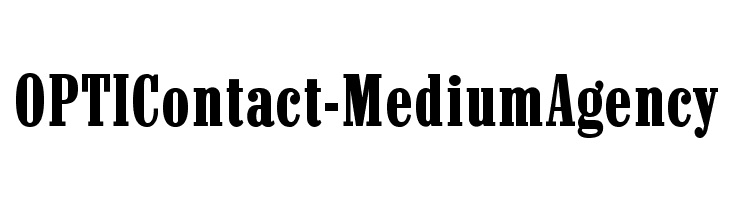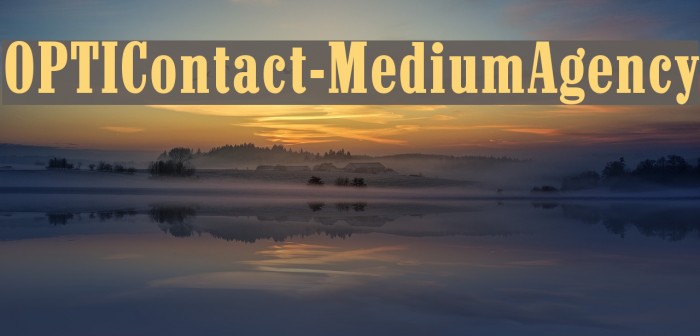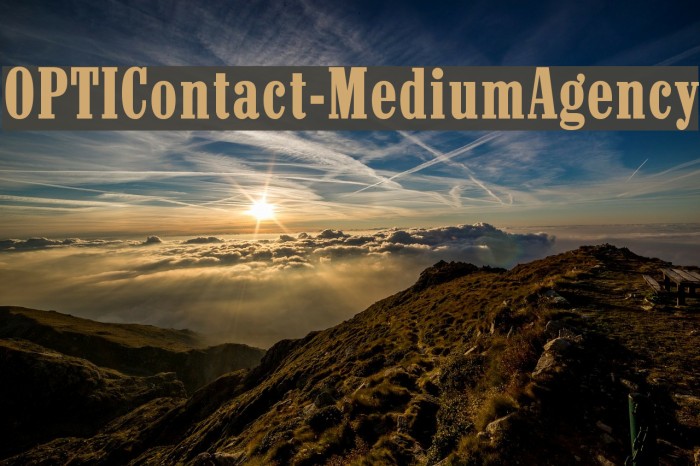
OPTIContact-MediumAgency Font
OPTIContact-MediumAgency Description
This font exhibits a bold and authoritative presence with its thick, sturdy strokes and high contrast between thick and thin lines. The serifs are pronounced, adding a classic and timeless feel to the overall design. The uppercase letters are strong and commanding, while the lowercase letters maintain a consistent weight and style, ensuring readability. The numerals are well-proportioned, complementing the alphabetic characters. Special characters are distinct and maintain the font's robust style, making it versatile for various applications.
A bold, high-contrast serif font with a classic and authoritative style from Uncategorized fonts.
- Proposed Projects: Ideal for headlines, posters, branding, and any project requiring a strong, impactful typeface.
- Overall Style: Classic